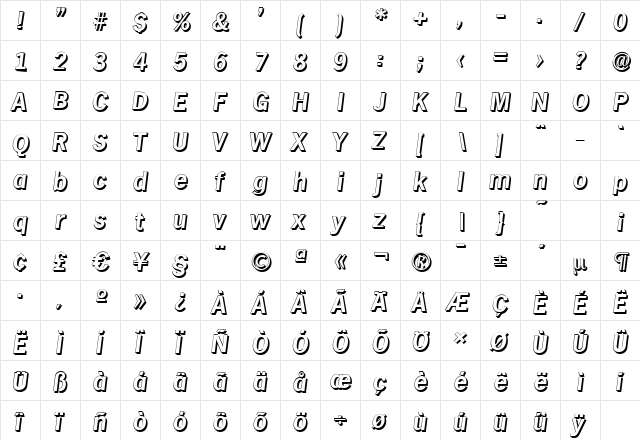
HamburgShadow BoldItalic
Design Context for HamburgShadow Typeface
HamburgShadow brings ornamental detail and strong personality to headlines and identities, where visual impact matters more than quiet functionality. Its italic angle brings a sense of urgency and motion to the letterforms. The heavy weight commands attention and anchors typographic hierarchies.
Font Pairing: Pair with a clean neutral sans-serif for body copy to let HamburgShadow's character lead without overwhelming the composition.
Pro Tip: Use HamburgShadow exclusively at display sizes — it was designed to be seen, not read at length. Let a neutral companion handle body copy.